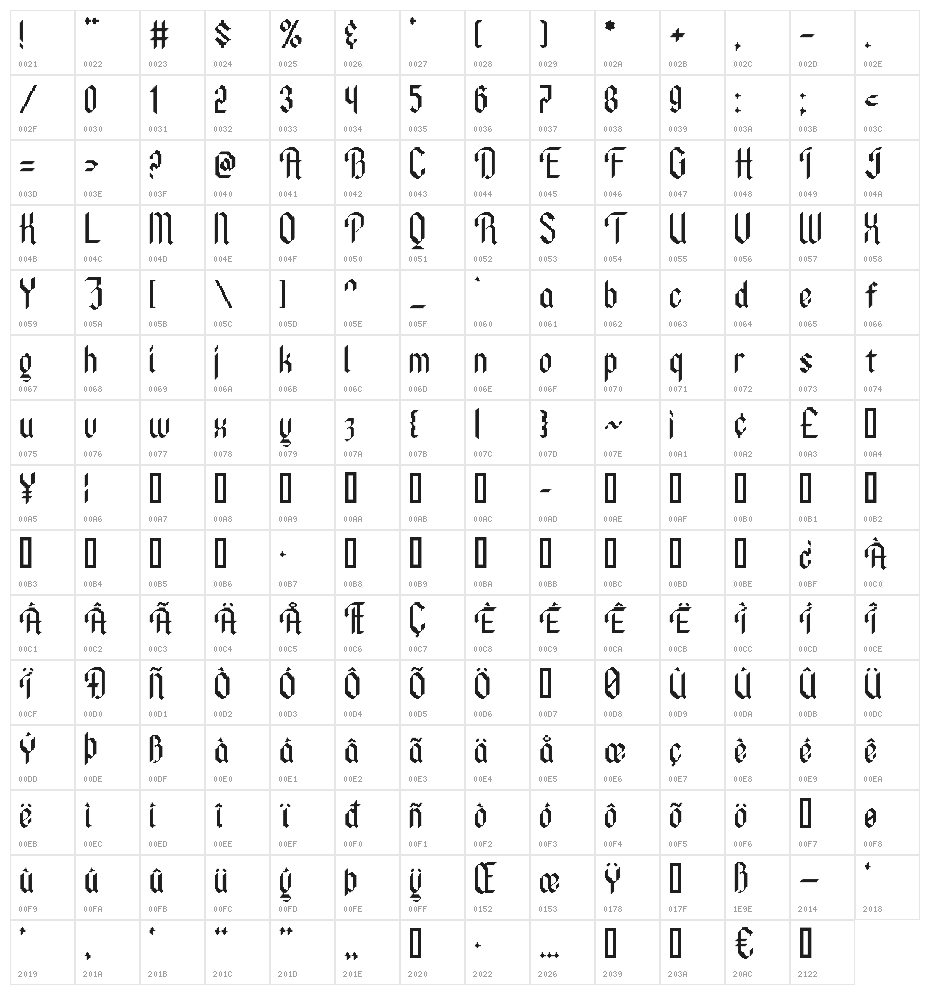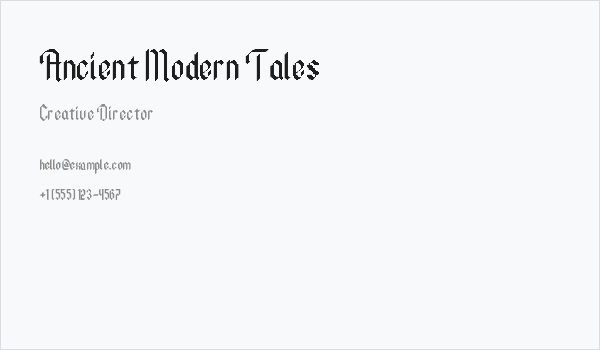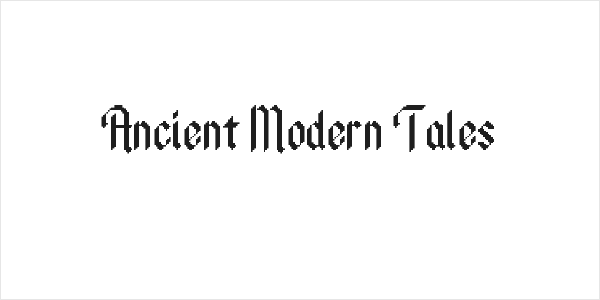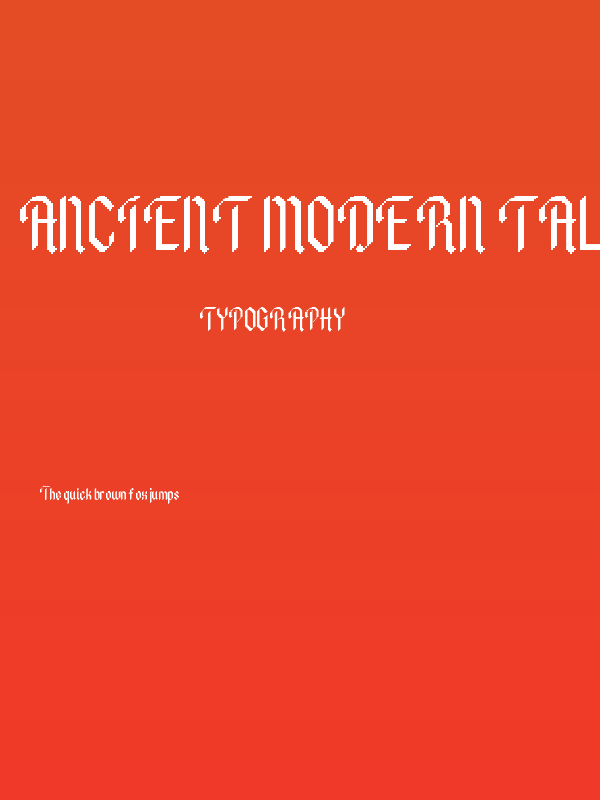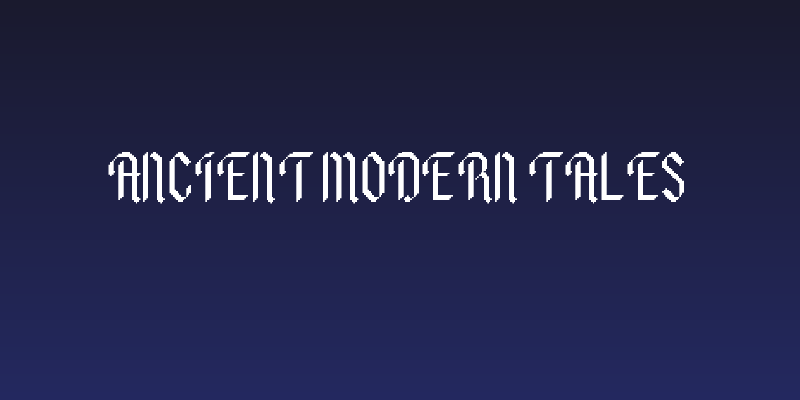
Ancient Modern Tales Font
Ancient Modern Tales Description
This font features a distinct blackletter style, characterized by its sharp, angular lines and intricate detailing. The uppercase letters exhibit a traditional Gothic influence, with pointed arches and a medieval aesthetic. The lowercase letters maintain a consistent style, offering a cohesive look across the alphabet. Numbers and special characters follow the same ornate design, making them suitable for decorative purposes. The font's unique appearance is reminiscent of ancient manuscripts and historical texts, providing a sense of antiquity and elegance. Its bold strokes and high contrast between thick and thin lines enhance its readability while maintaining an artistic flair.
| Use Case | Headlines, Logos, Decorative text |
| Proposed Projects | Ideal for historical-themed projects, book covers, posters, and branding that requires a vintage or medieval touch. |